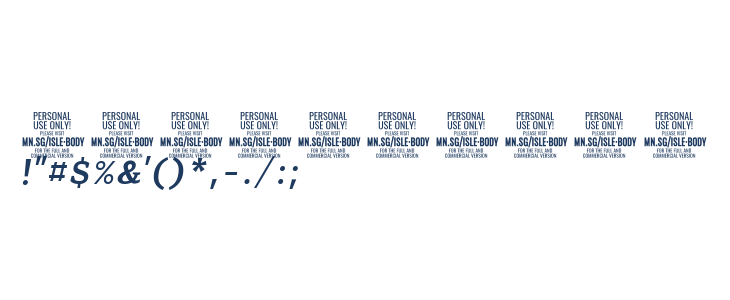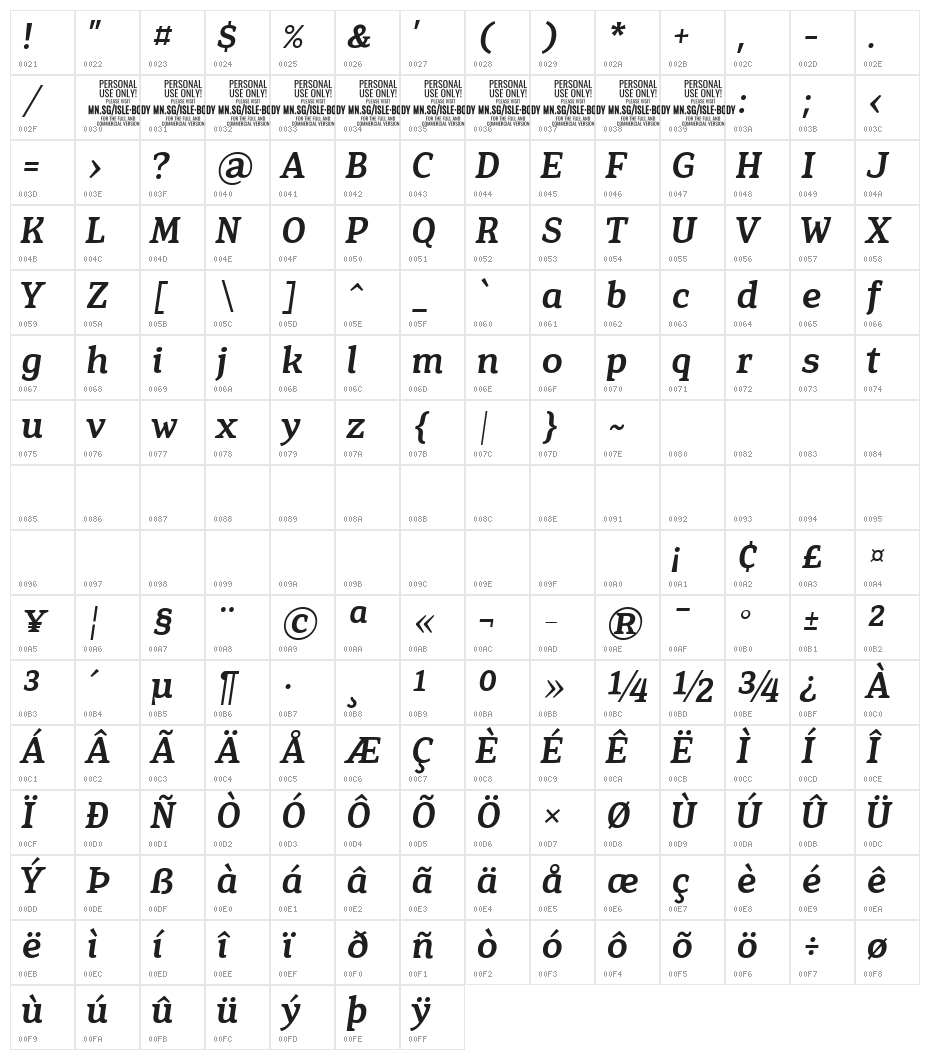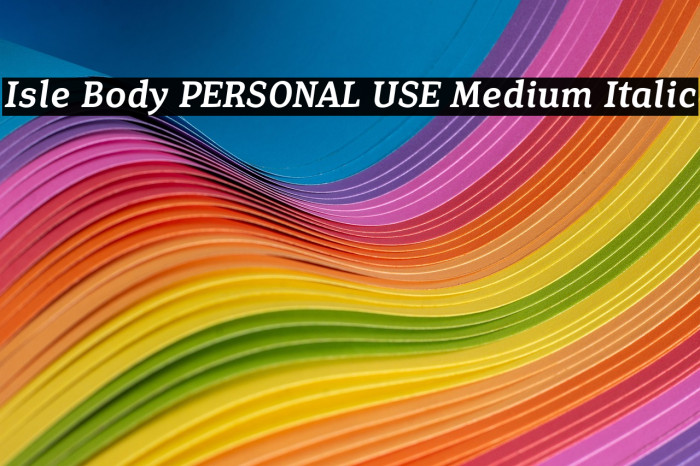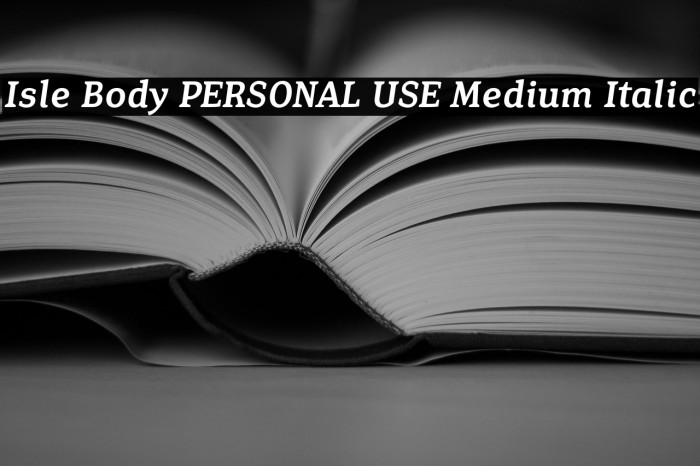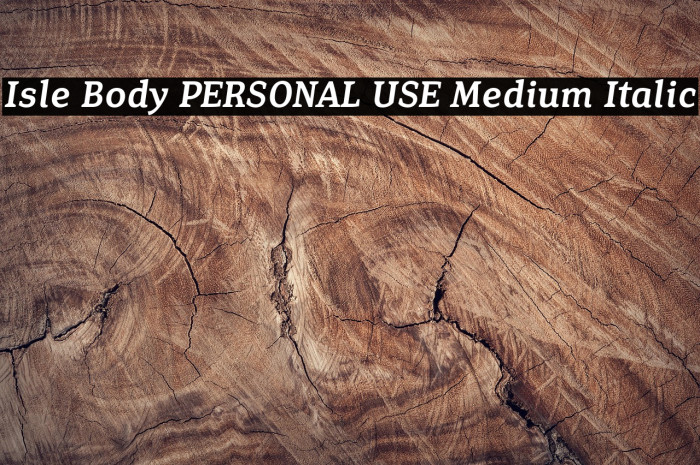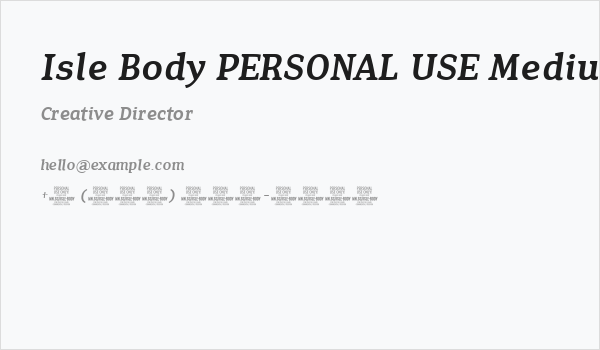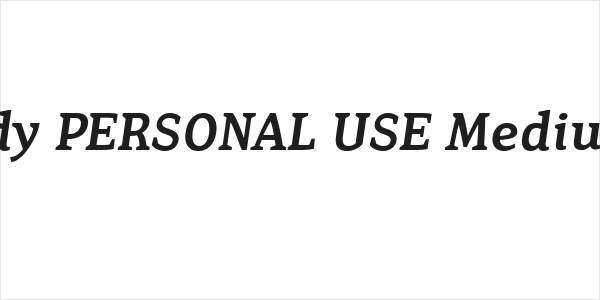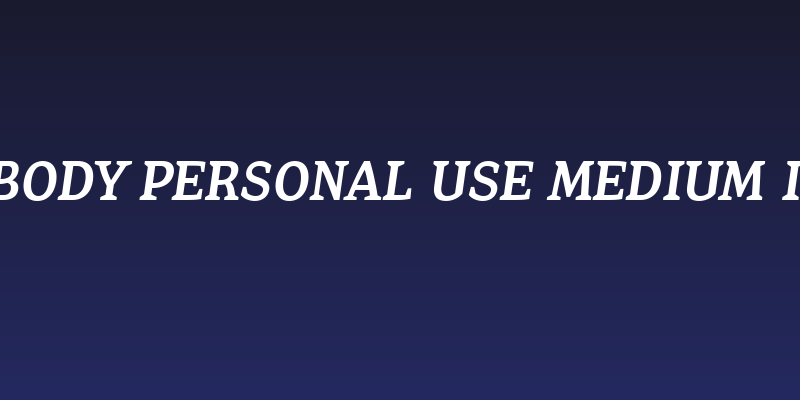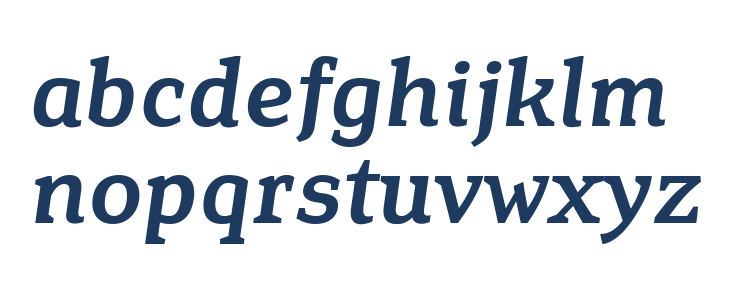
Isle Body PERSONAL USE Medium Italic Font
Isle Body PERSONAL USE Medium Italic Description
This font features a classic serif style with a medium weight and italicized form, giving it a sophisticated and elegant appearance. The characters are well-defined with a slight slant, enhancing readability while maintaining a formal tone. The uppercase letters are bold and commanding, while the lowercase letters offer a softer, more approachable feel. The numerals and special characters are consistent with the overall design, ensuring uniformity across all text. This font is suitable for various applications where a touch of elegance and professionalism is desired.